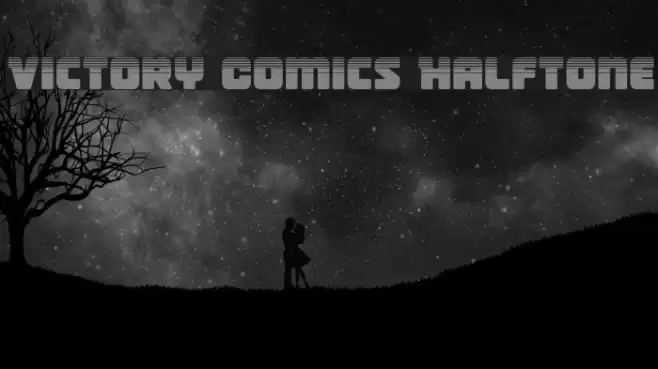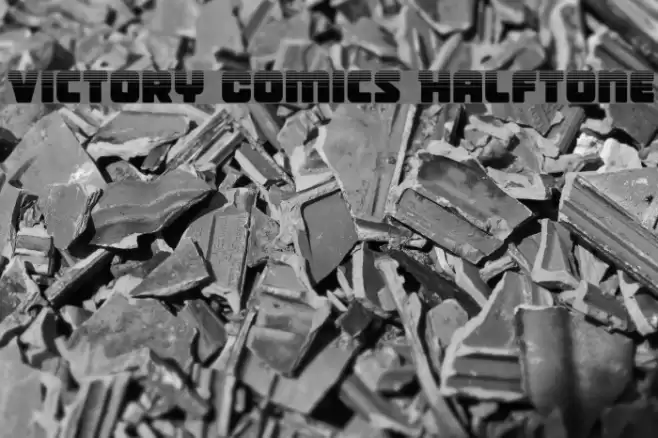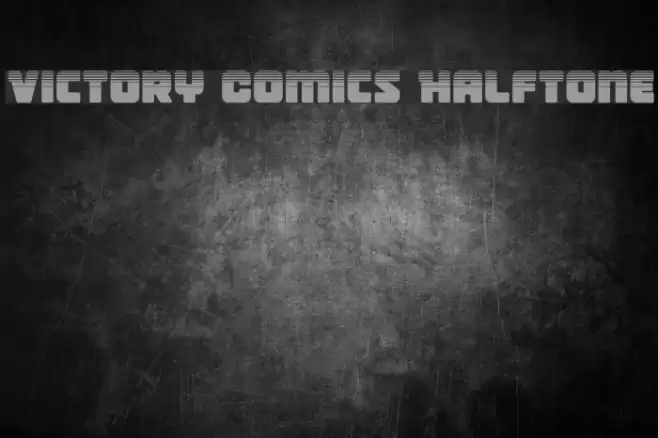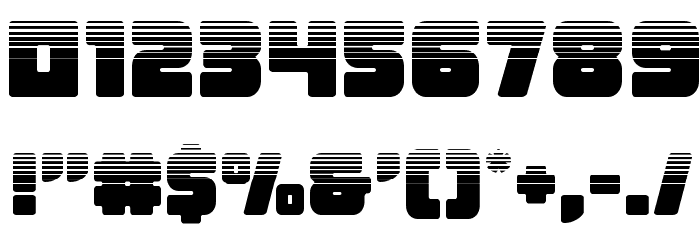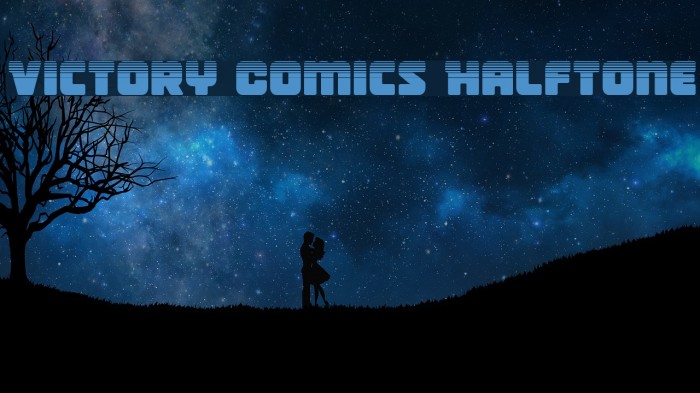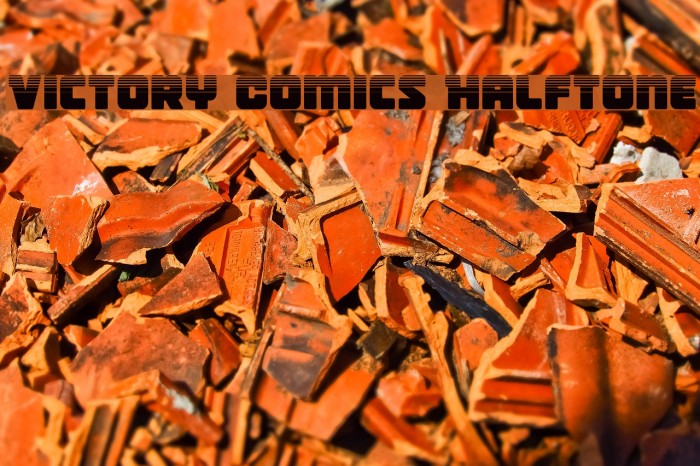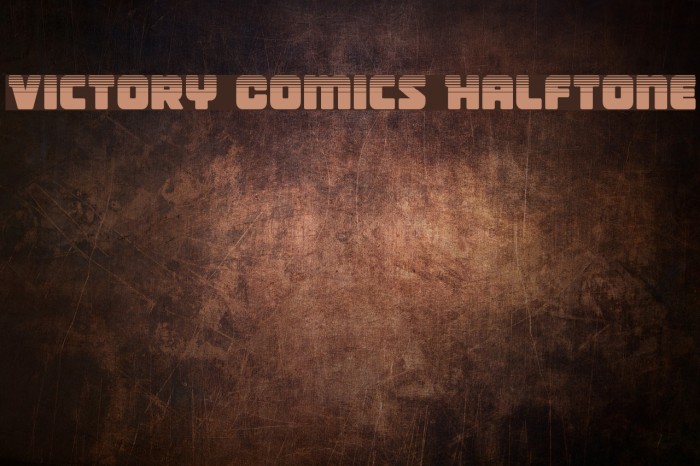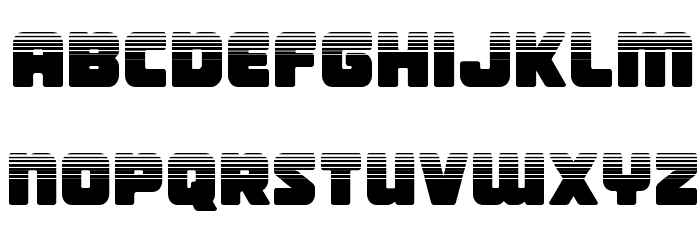
Victory Comics Halftone Font
Victory Comics Halftone Description
This font features a bold, dynamic style with a halftone effect that gives it a unique, retro comic book appearance. The characters are blocky and robust, with a distinct horizontal line pattern that adds depth and texture. The uppercase and lowercase letters maintain a consistent weight, creating a cohesive look. The numerals and special characters follow the same design principles, ensuring uniformity across all glyphs. This font's boldness and distinctive style make it stand out, ideal for projects that require a strong visual impact.
A bold, halftone comic-style font with a retro vibe from Uncategorized fonts.
- Proposed Projects: Ideal for comic book covers, retro posters, video game graphics, and eye-catching headlines.
- Overall Style: Retro, Comic
- Use Case: Headlines, Posters, Logos